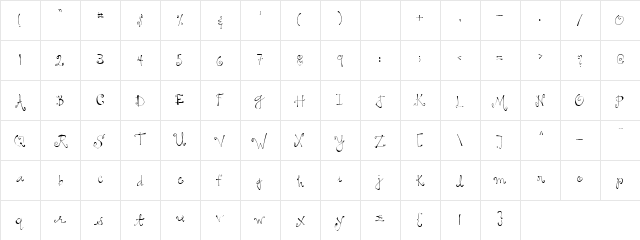
2Peas Apple Crisp Regular
Design Context for 2Peas Apple Crisp Typeface
2Peas Apple Crisp is a composed and adaptable typeface that performs quietly and consistently across a wide range of design contexts.